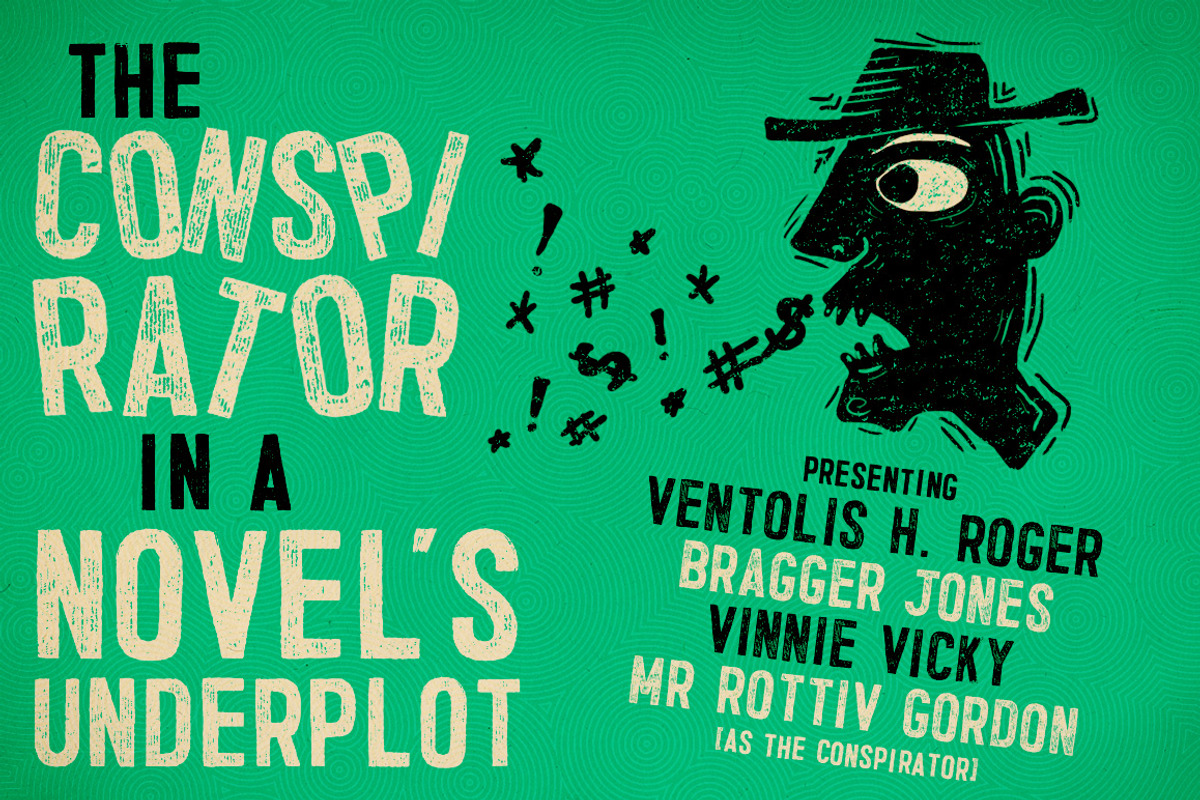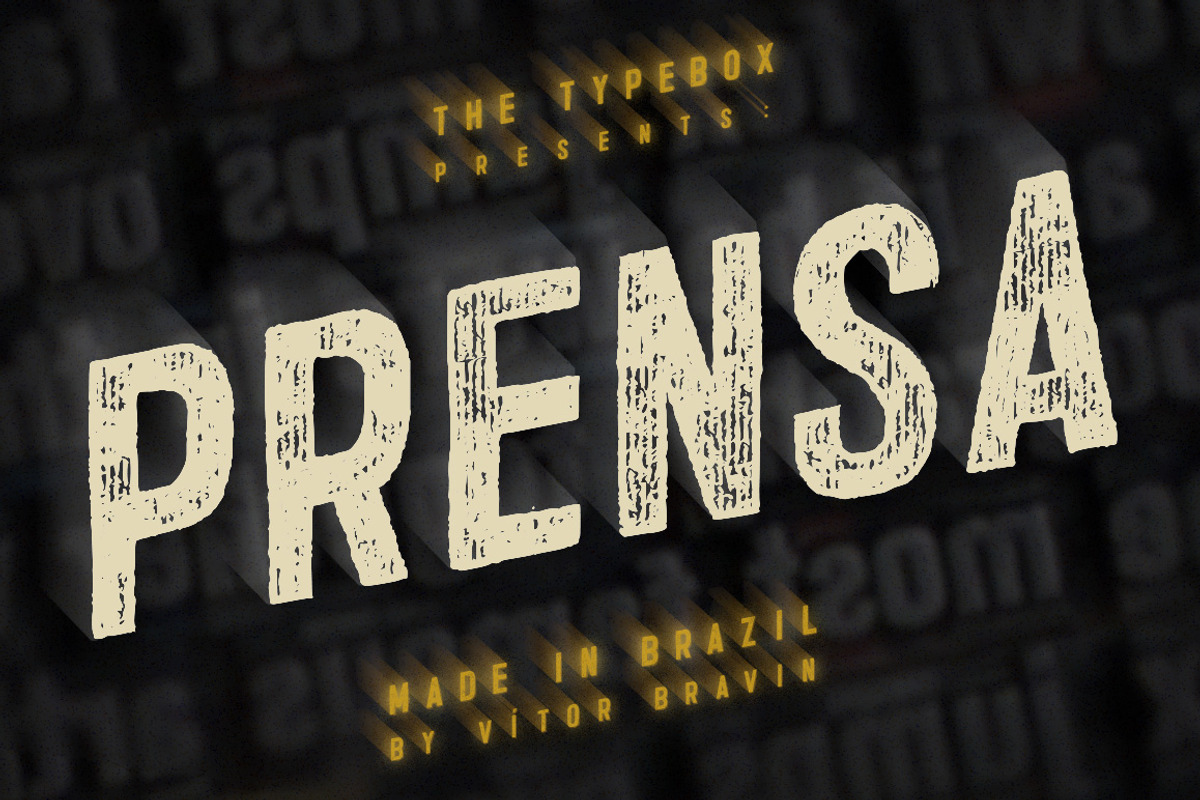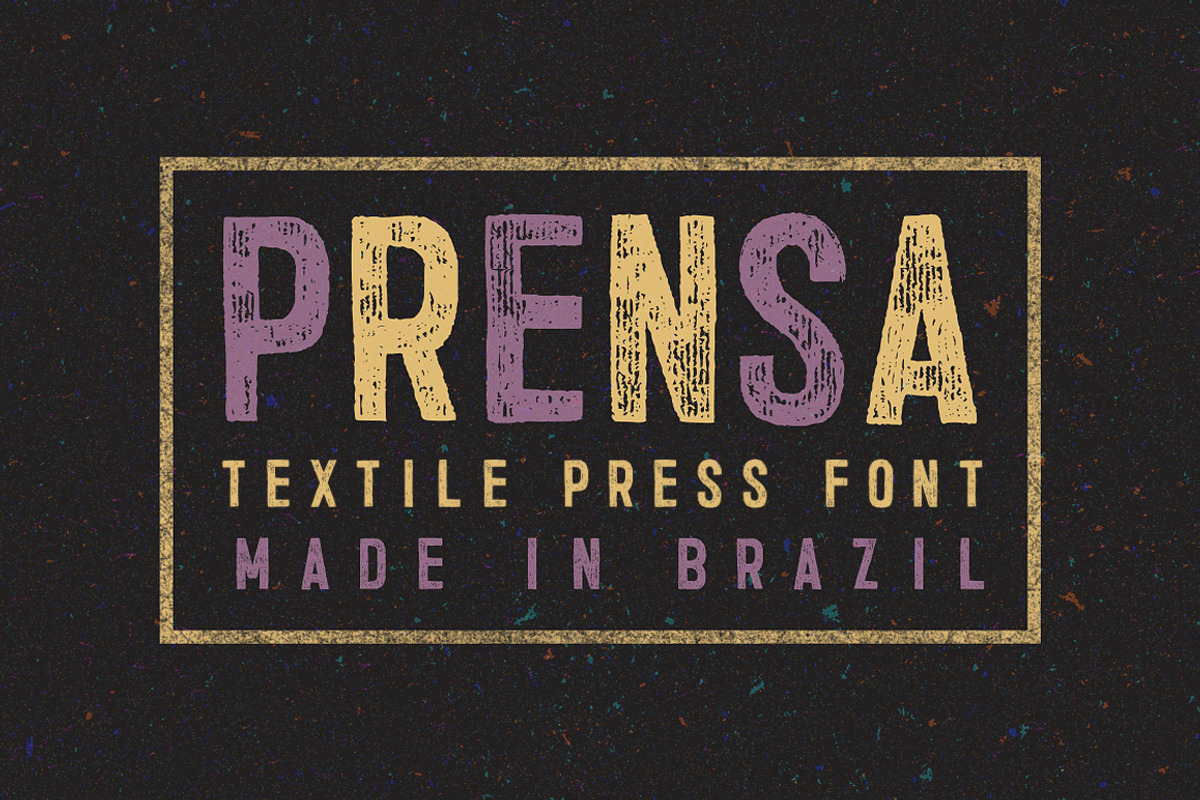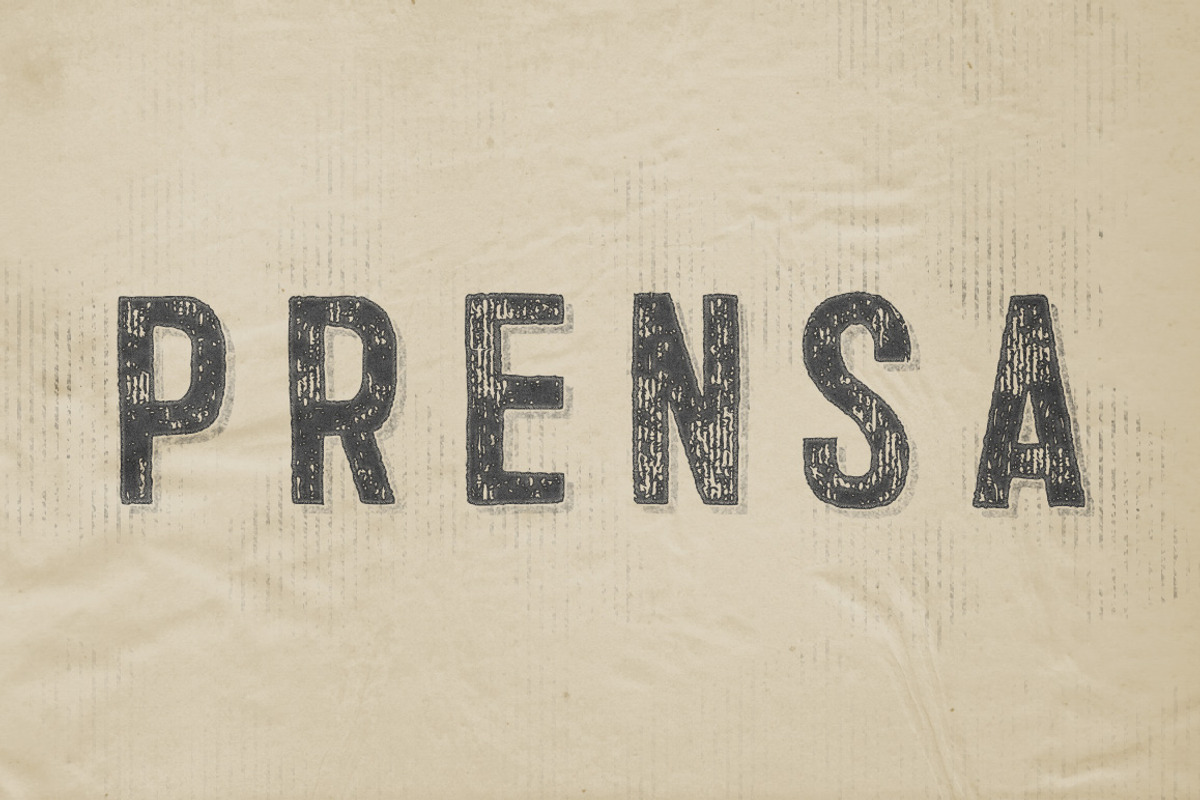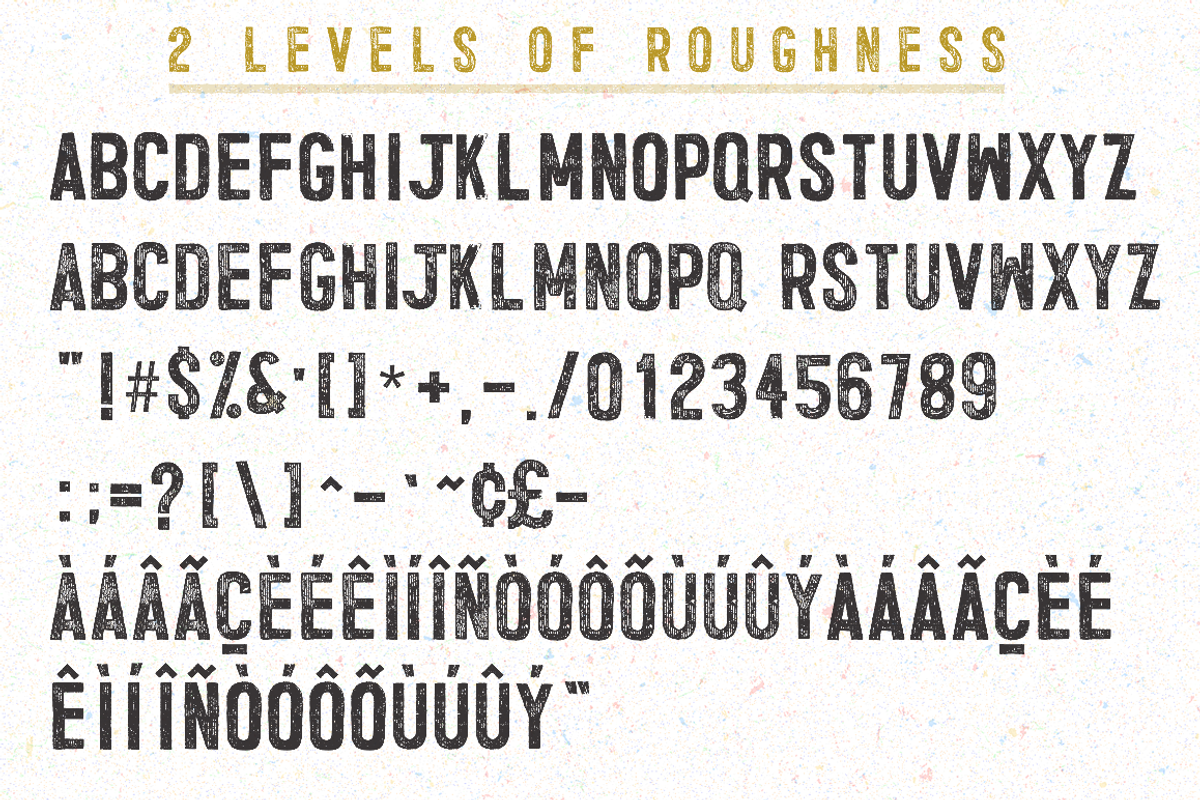
Prensa Typeface
A sans-serif, vernacular, open type typography with glyphs based on press types.
PRENSA is the portuguese name for Press, This font is inspired by the shapes of my Trincha font, but with a reinvented aproach: Textile printed textures, ink squish strokes and rough edges.
TYPEBOX Tip: Alternate between lowercase and uppercase
Prensa Typeface by Type Box fits naturally into Branding, posters, packaging, typography.